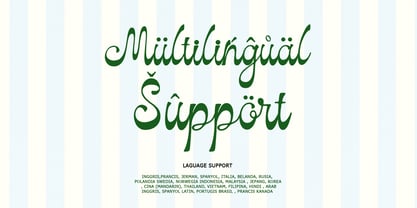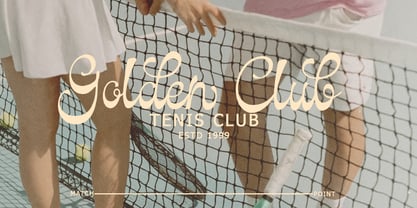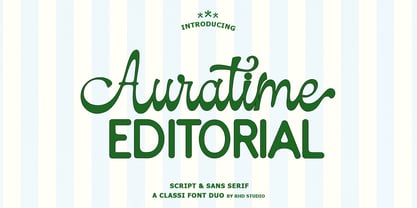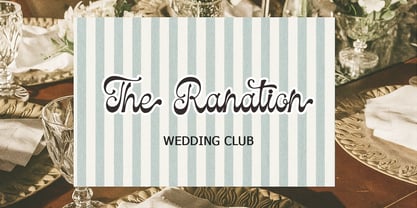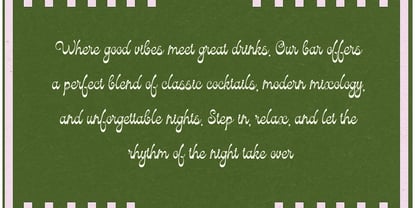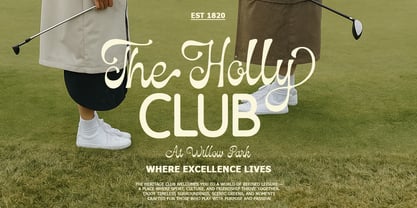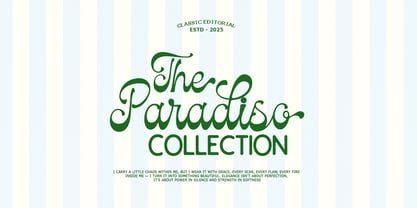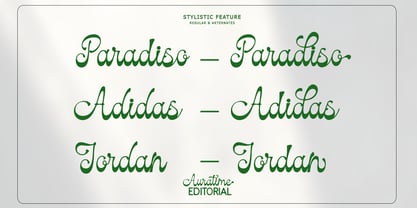
Auratime
por Rhd Studio
La familia tipográfica Auratime fue diseñada por Rahmad Rizky y publicada por Rhd Studio. Auratime contiene 2 estilos y opciones de paquete familiar.
Auratime Editorial is a playful handwritten font with two matching styles: a bold uppercase sans and a soft handwritten script designed in lowercase. This contrast creates a dynamic, trendy look that’s full of personality — bold but friendly, fun but clean. Perfect for eye-catching branding, social posts, posters, clothing tags, stickers, menu design and anything that needs a bit of charm and attitude. Auratime Editorial supports the most popular latin-based languages, you can check the symbol you need by typing a couple of words in the font preview box I hope you enjoy these fonts; feel free to leave a comment if you have any thoughts or feedback. Thank you for purchasing, and have fun! Regards, Rhd Studio
Diseñadores: Rahmad Rizky
Editorial: Rhd Studio
Fundición: Rhd Studio
Propietario del diseño: Rhd Studio